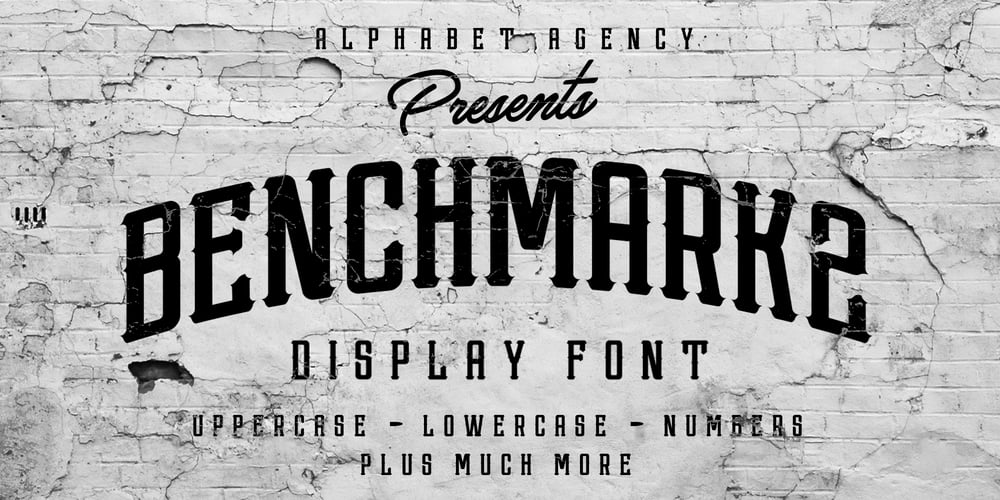
Benchmark2
Benchmark2 font
Benchmark2 Font Family was designed by Swinn Jonathan and published by Alphabet Agency. Benchmark2 contains 1 styles and family package options. Benchmark2 is a super cool serif font developed from the popular original Benchmark font. This version has been remastered in the latest font developing software and now the new version includes a lot of additional characters that are not available in the original.The original font has been used worldwide, used in Hollywood films and in products in popular clothing lines. The font works well in a variety of themes including tattoo, rebellious, street, western and vintage, to name some.The font was initially designed for use on Baseball jerseys in an effort to developed ways of creating new looks in the field of sports related graphic design.